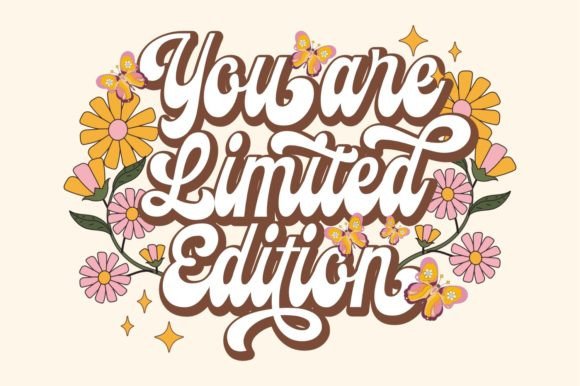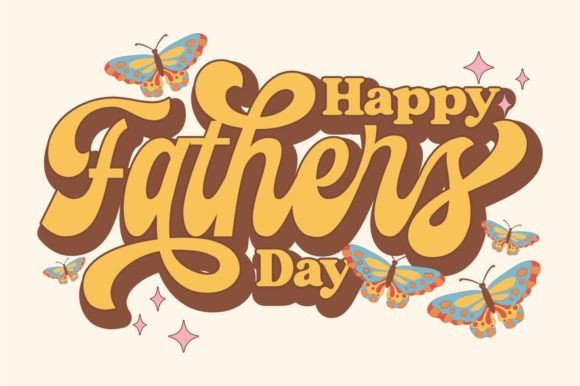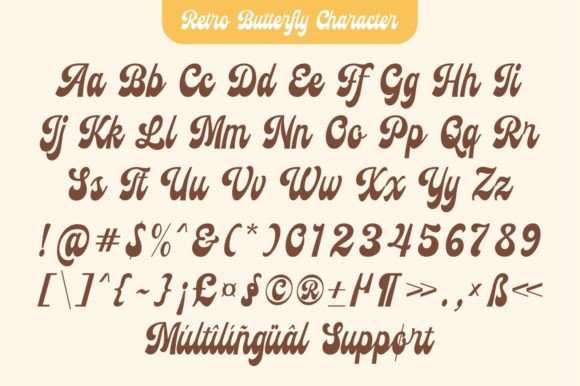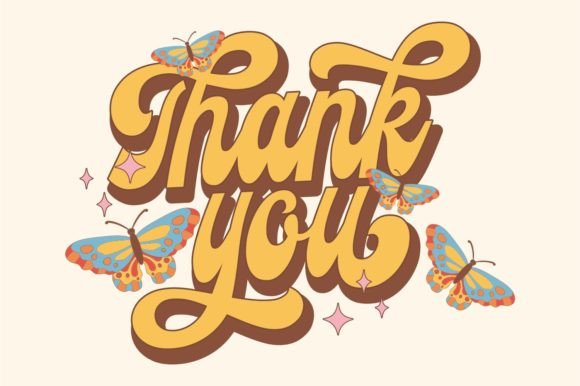
Retro Butterfly Font
Retro Butterfly is a groovy retro script font with a sense of funk, fun, and free-spiritedness. This font is characterized by its bold, flowing strokes and exaggerated curves, reminiscent of the hand-drawn lettering seen in vintage psychedelic posters and album covers.
The letters in the groovy retro script font are fluid and expressive, with unique flourishes and stylistic elements that give them a playful and energetic vibe.
The font is perfect for projects that seek a nostalgic or vintage feel, such as retro-themed designs, party invitations, music album covers, or any creative work aiming for a groovy and vibrant atmosphere. It adds a touch of whimsy and personality to any text, capturing the carefree and bold spirit of the era it represents.